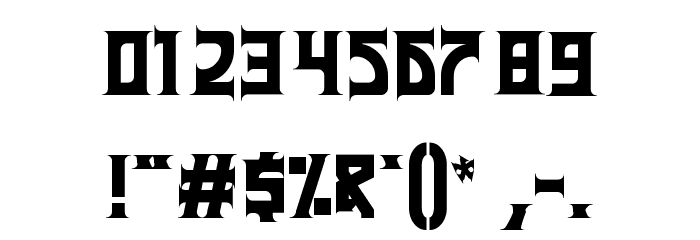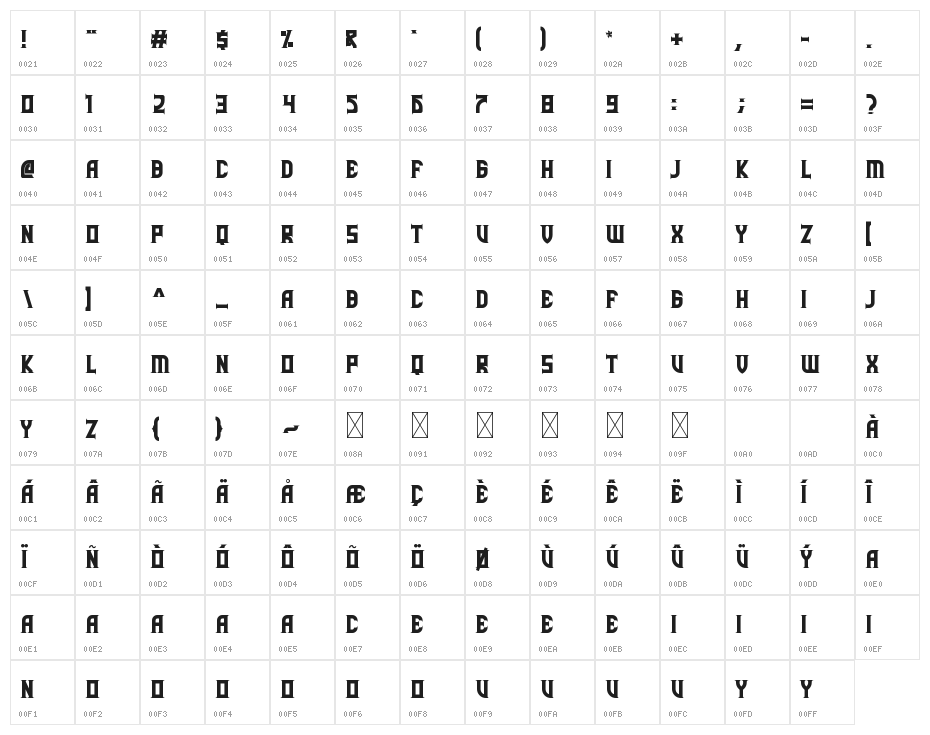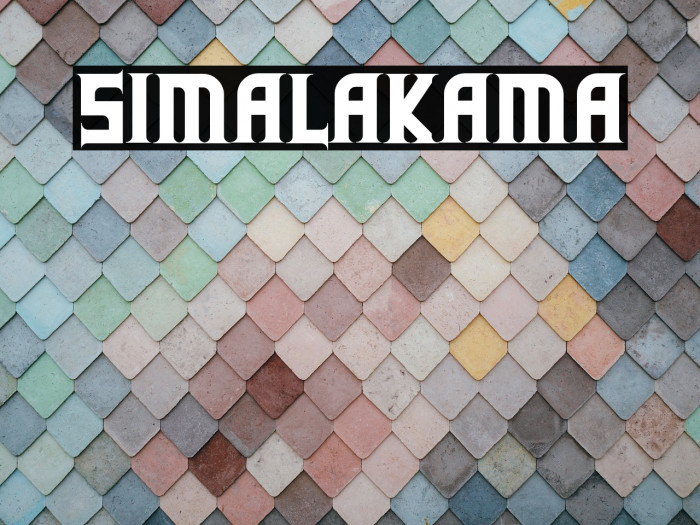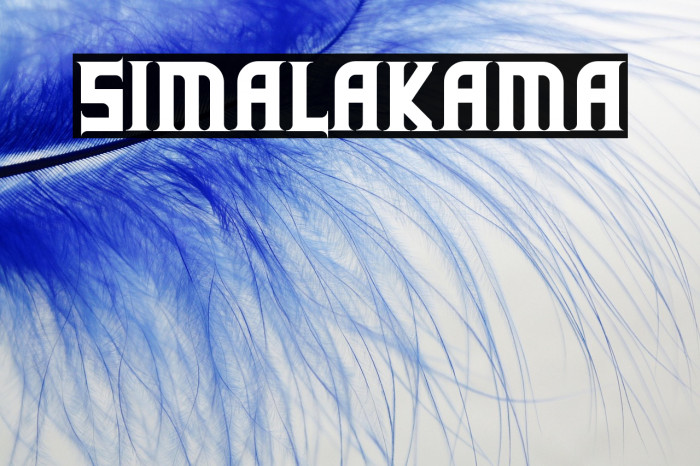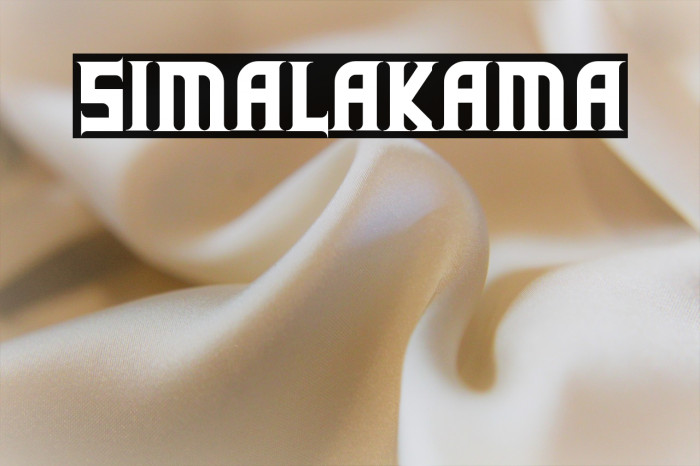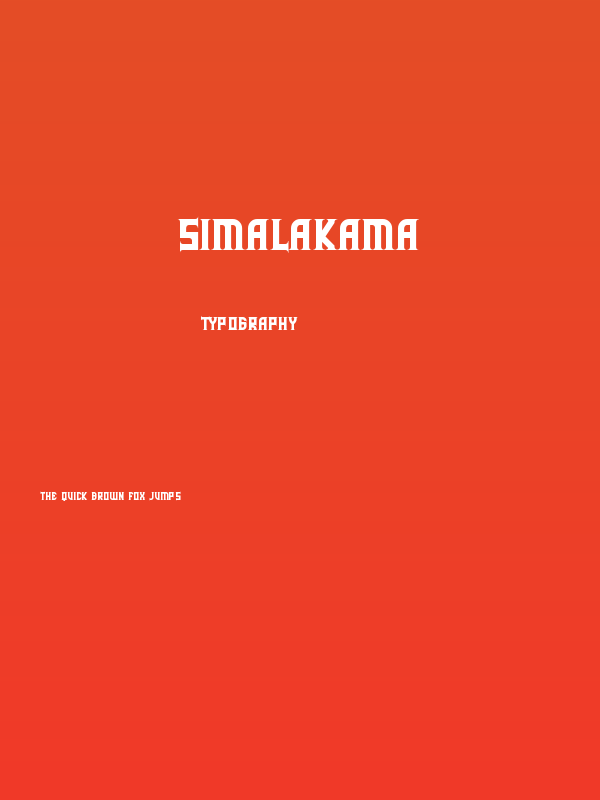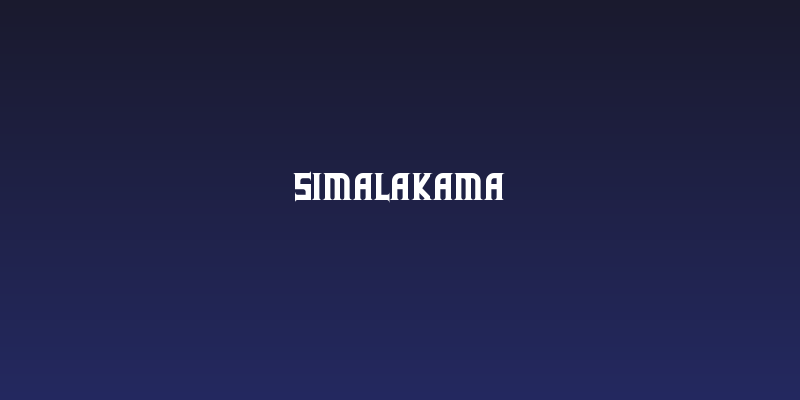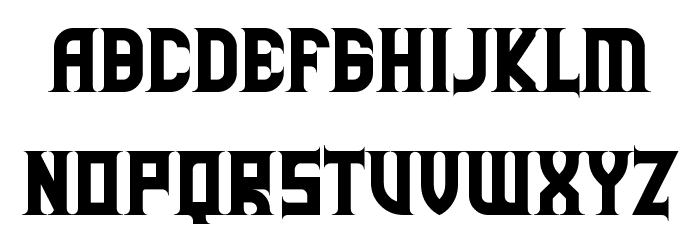
Simalakama Font
Simalakama Description
This font features a bold and striking design with a strong presence, characterized by sharp, angular edges and a gothic-inspired aesthetic. The uppercase letters are particularly prominent, with thick strokes and pointed serifs that give them a dramatic flair. The lowercase letters maintain a consistent style, offering a cohesive look across different text sizes. Numbers and special characters are equally bold, ensuring they stand out in any composition. The overall design is reminiscent of medieval or fantasy themes, making it ideal for projects that require a touch of drama and elegance.
| Proposed Projects | Ideal for fantasy-themed designs, book covers, posters, and branding that requires a dramatic and bold statement. |